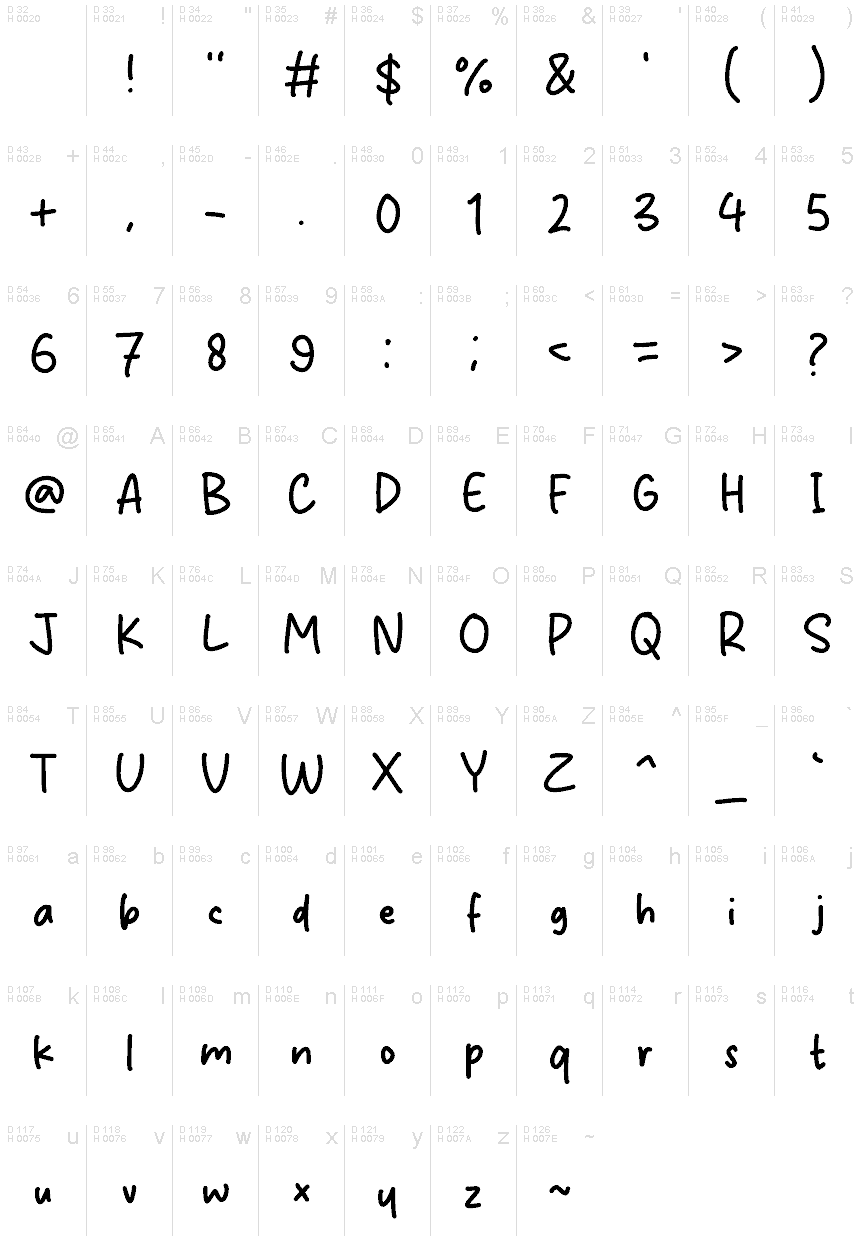
Jungle Island
Jungle Island font by MJType is a handwritten-like typeface that exudes a casual and organic feel. Its relaxed character provides an approachable tone, making it ideal for projects that require a personal touch. The natural flow of this font captures the authenticity and spontaneity of handwriting.
This free handwritten font is ideal for use in invitations, greeting cards, posters, packaging designs, logotypes, branding projects, book covers, magazine layouts, social media graphics, and website design. It infuses any project with warmth and informality.